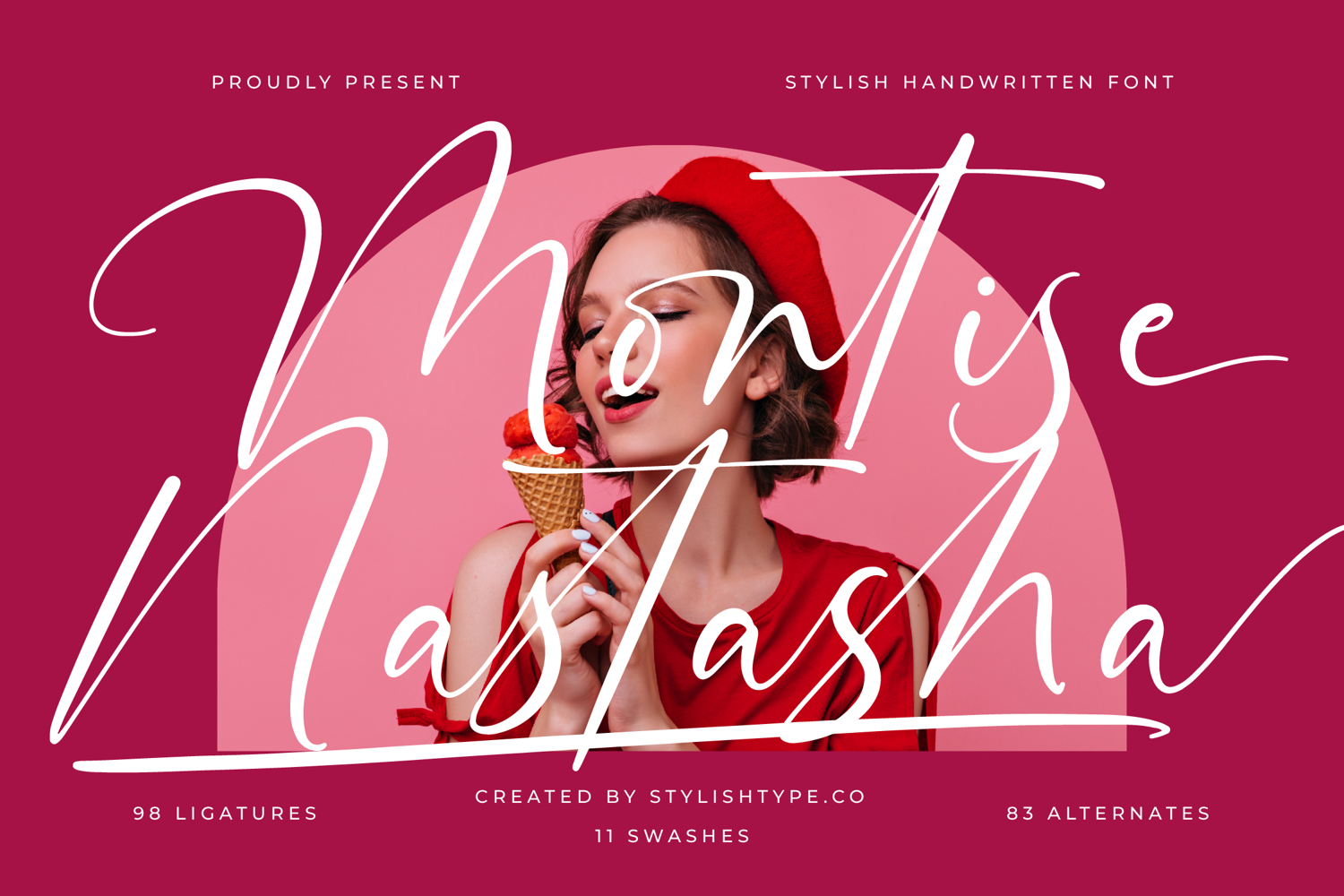
Montise Natasha - Stylish Handwritten Font
Montise Natasha Italic
Montise Natasha
Unlock limitless creative possibilities with the extensive design assets of Montise Natasha - Stylish Handwritten Font. Boasting an impressive collection of 98 ligatures, 11 elegant swashes, and 83 alternates, this font offers exceptional expressive typography. These rich features enable designers to craft unique, customized textual layouts, adding a bespoke quality that elevates any project.